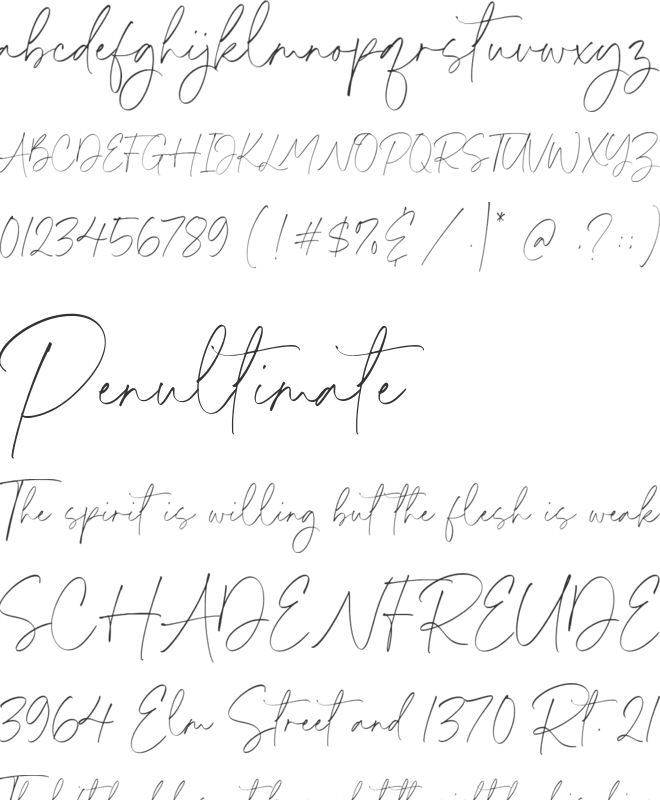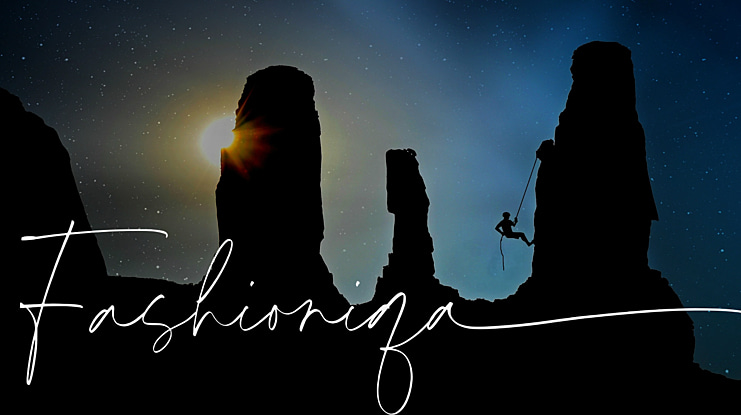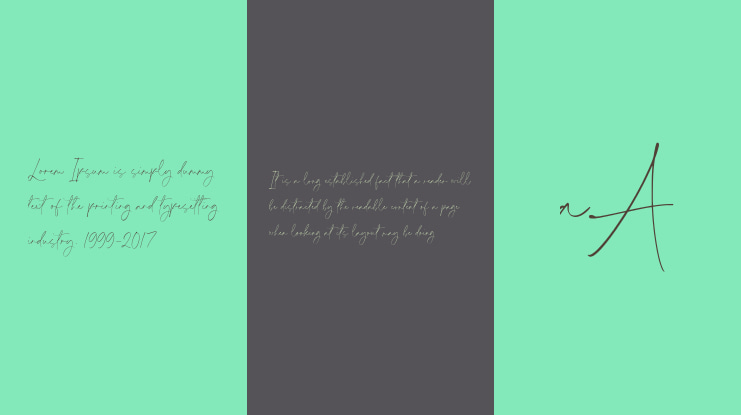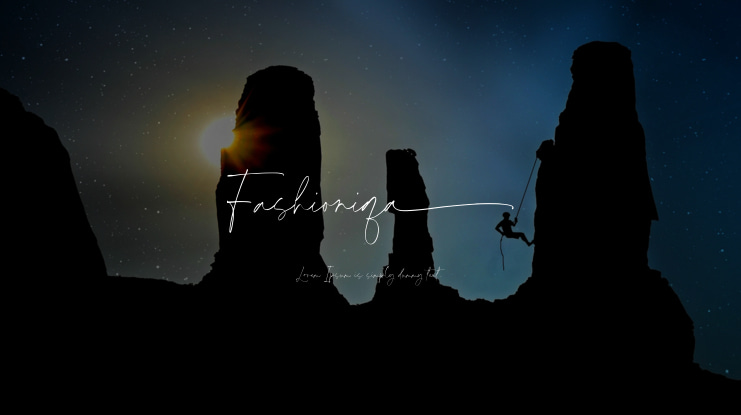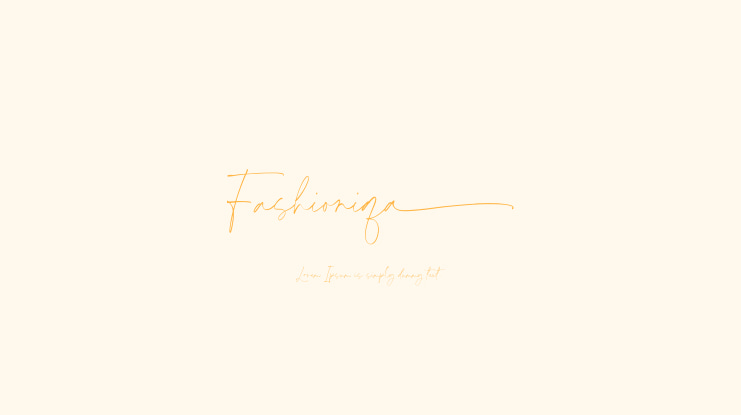
Proudly Present Fashioniqa
Fashioniqa is a Handwritten script font that is modern and fresh, and will bring a warm and inviting feel to your business. Take advantage of the fonts and experience the magic for yourself.
Fashioniqa is perfect for product packaging, branding project, megeenazine, social media, wedding, or just used to express words above the background.
Fashioniqa Font Features premium :
-Full Set of standard alphabet and punctuation
– Fashioniqa also multilingual support.
- Ligature and Swash